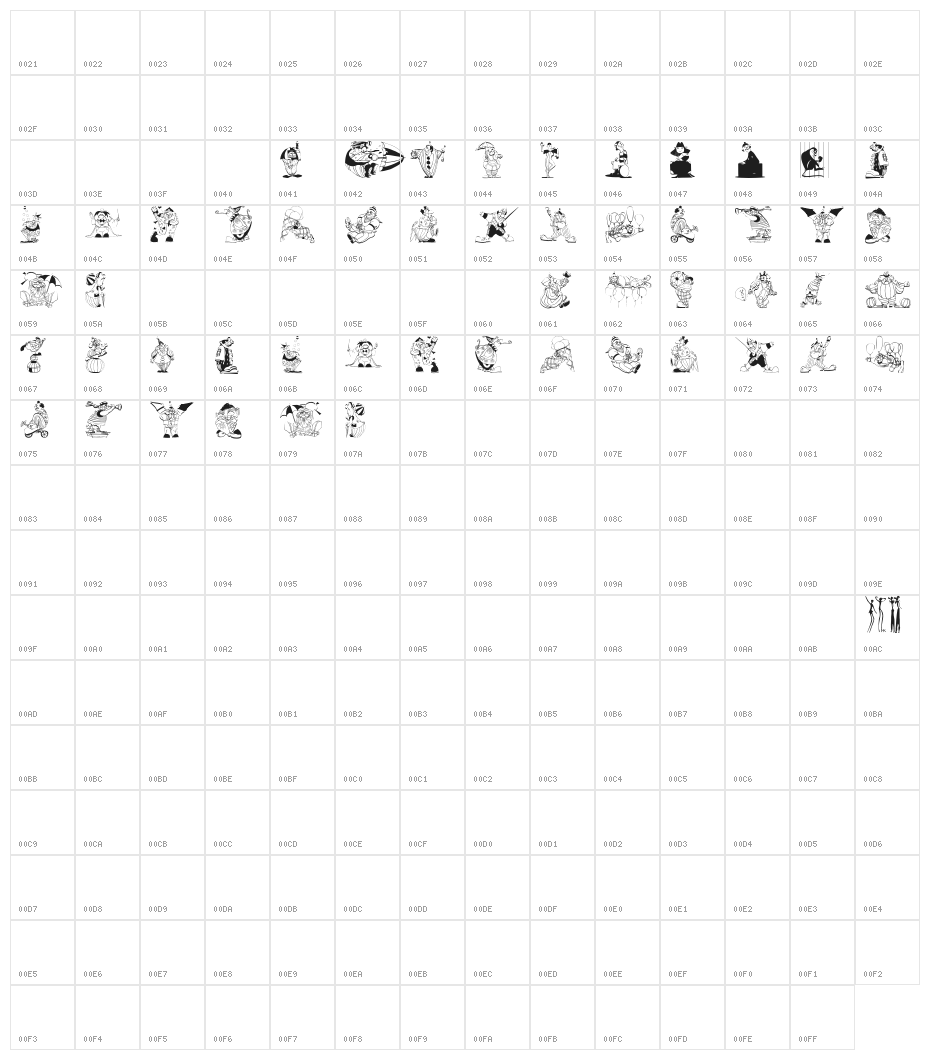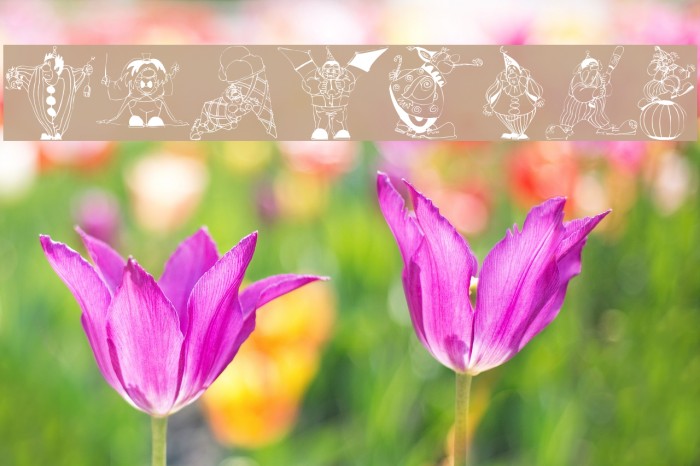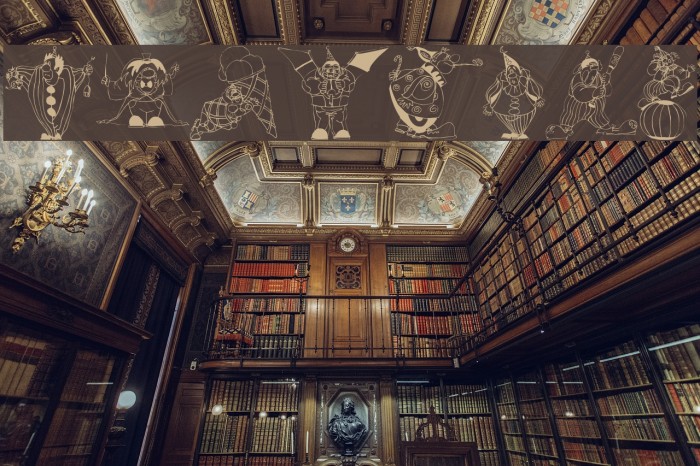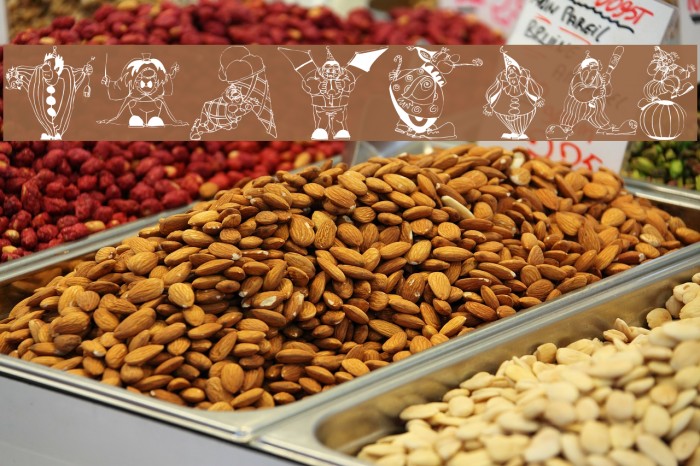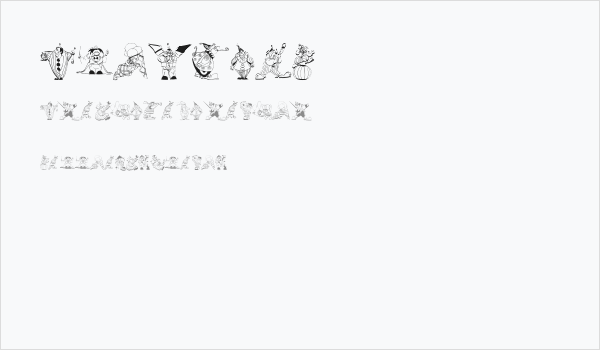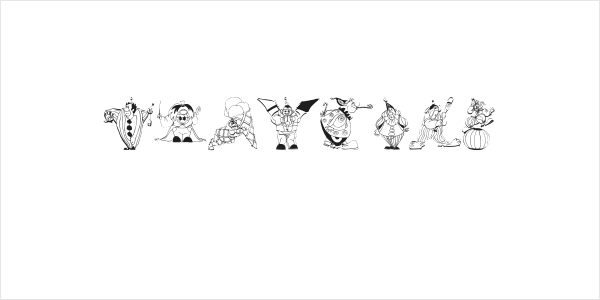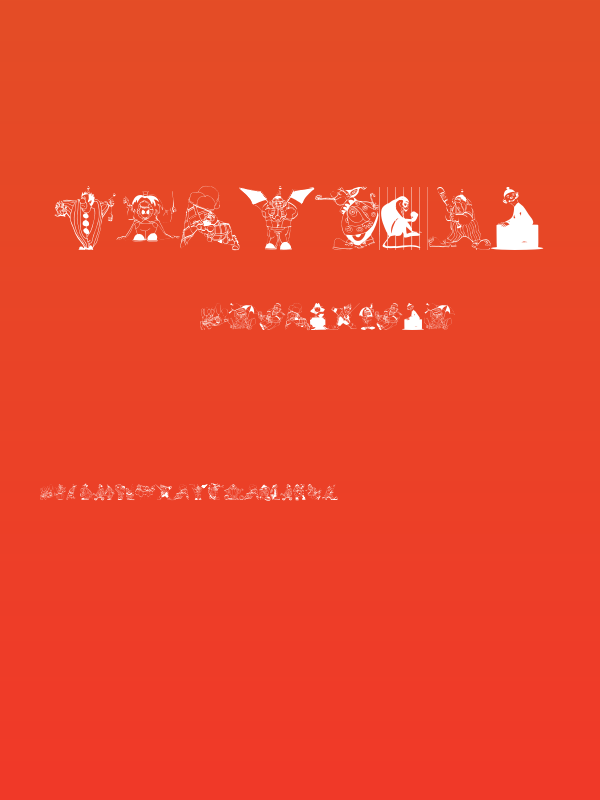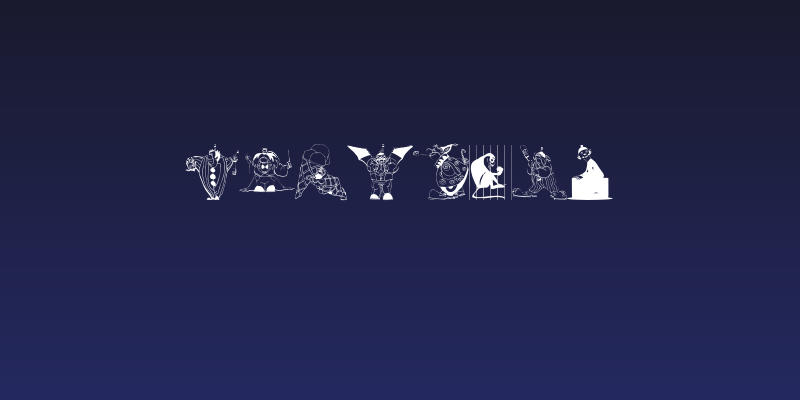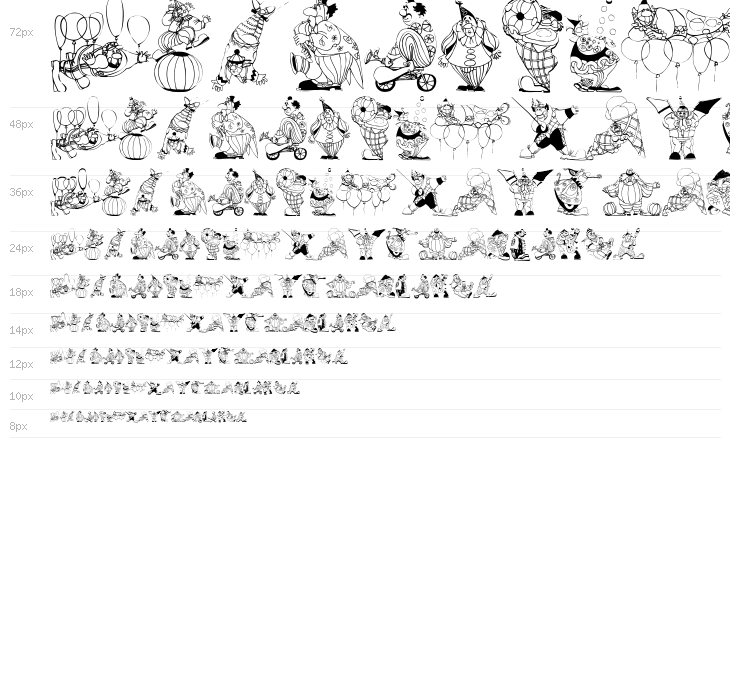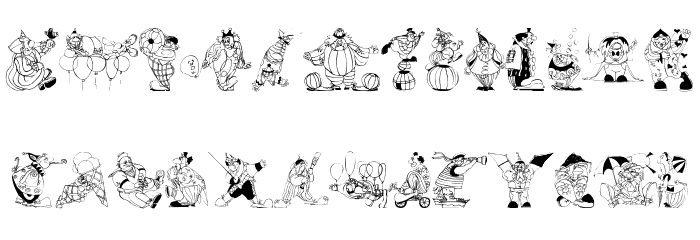
Clownish Font
This is a playful and whimsical decorative font featuring a series of clown illustrations that form each letter and character. Each character is uniquely designed with intricate details, showcasing various clown poses and activities, such as juggling, riding unicycles, and performing tricks. The font is highly decorative, with each letter being a small piece of art, making it ideal for projects that require a fun and entertaining visual element. The characters are well-spaced, ensuring readability despite their complex designs. This font is perfect for adding a touch of humor and creativity to any project.
Proposed ProjectsIdeal for children's party invitations, circus-themed events, playful posters, and creative branding projects.